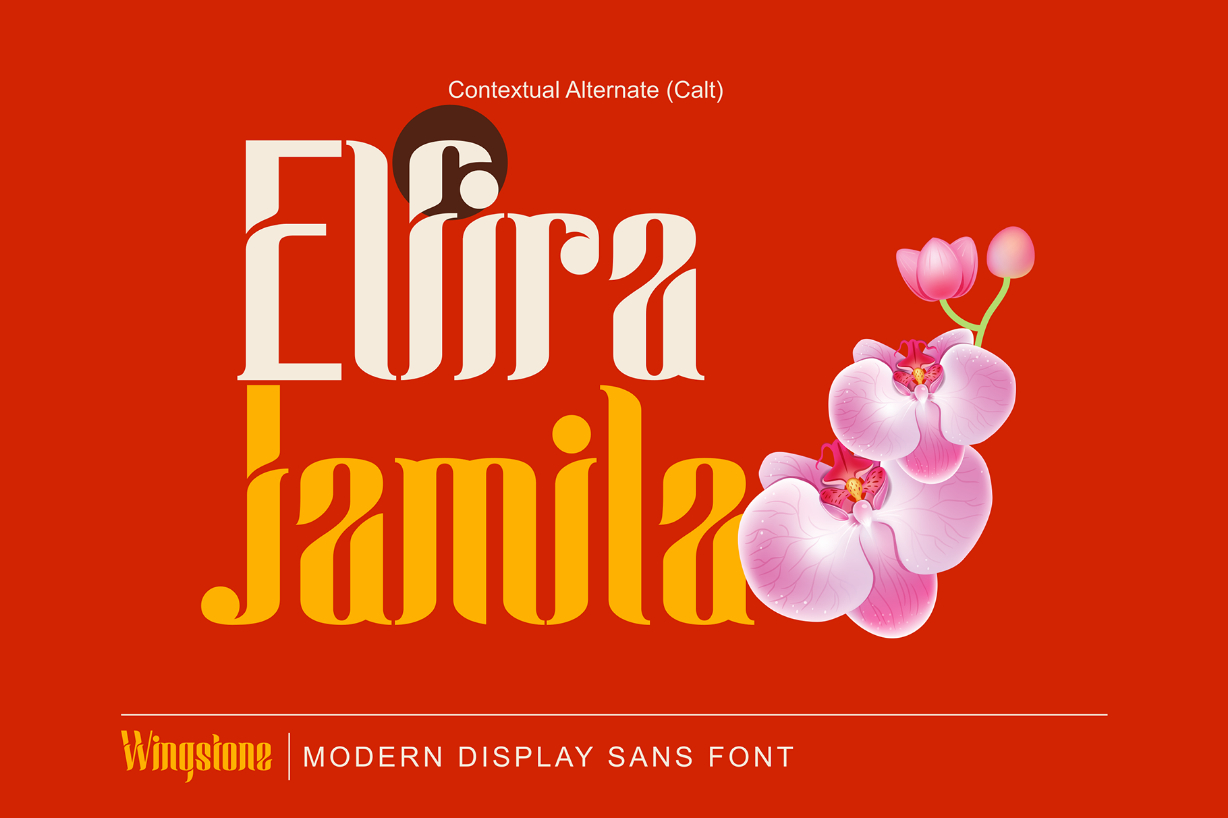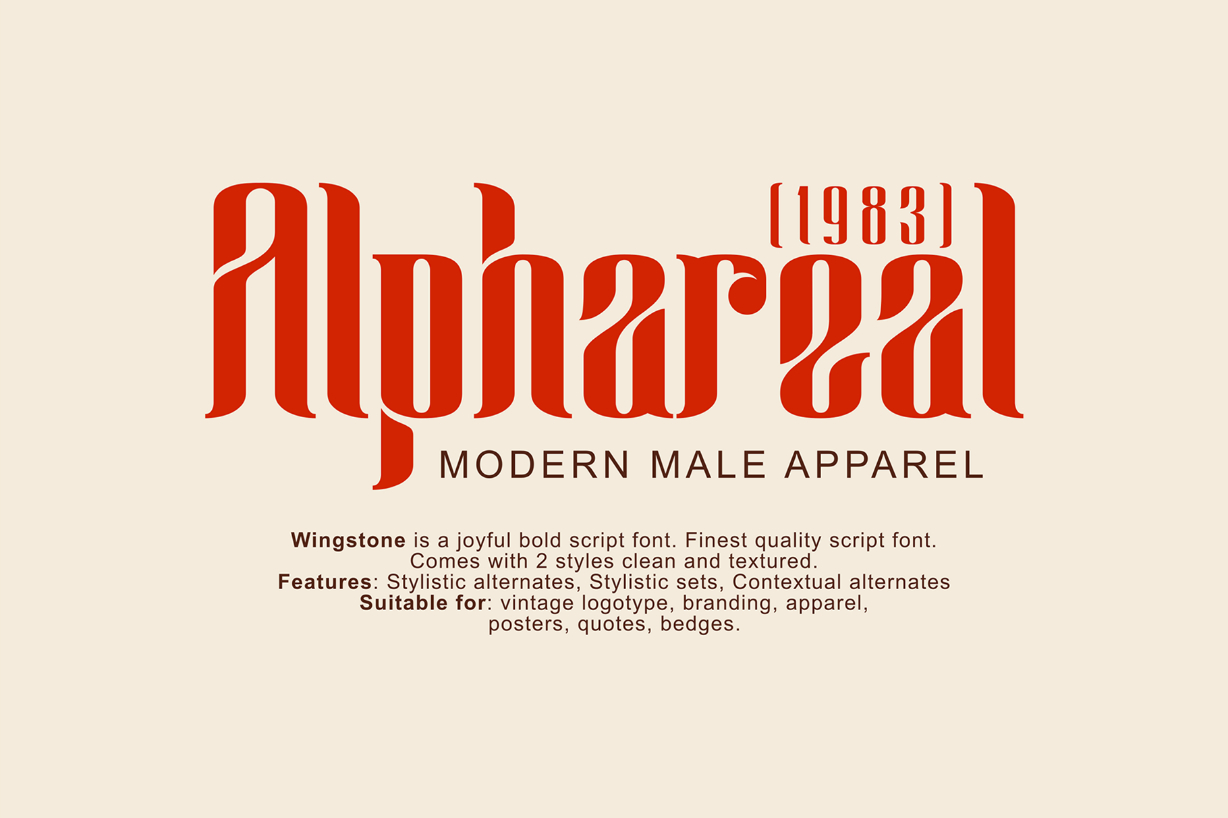
About Wingstone Font
Wingstone is a modern beautiful blackletter font that embodies charm and elegance in every letter. Suitable for logotype, branding, packaging design, poster design, website/display, editorial, headline, advertising, and more.